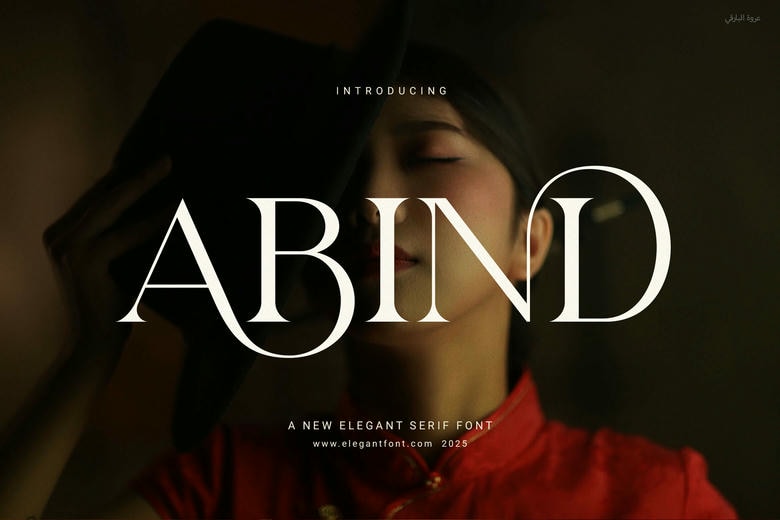
Abind Font
Abind Elegant Serif Font is a mix of classic and modern clearness. This font has elegant curves and harmonious proportions that make your works classy and professional. All characters are flowing perfectly and provide a smooth and clean and confident look without being rigid and hard.
Abind does not just base itself on surface but gives your creative work functional ligatures and polished shapes. These design elements make your writings easier to read and provide a nice embellishment to your texts. This font makes your visuals shine, regardless of whether you are coming up with the logos or doing the print layouts.
Abind can be used in any type of project. It suits perfectly in branding, packaging, advertising and editorial work. Also, it can be used in fashion lookbooks, product labels, websites, invitations, and so on. Due to its flexibility, you will be able to have the same brand tone in both digital and print media.
Abind Serif Font